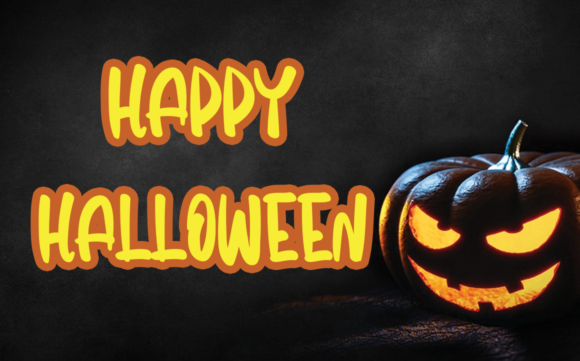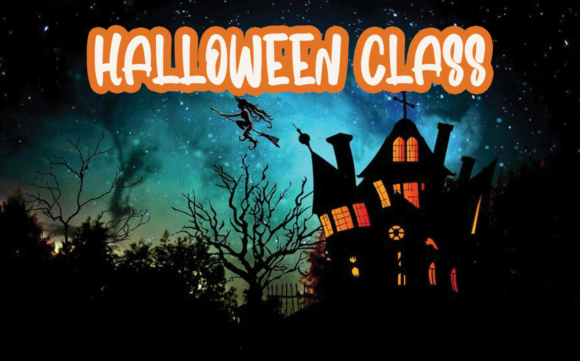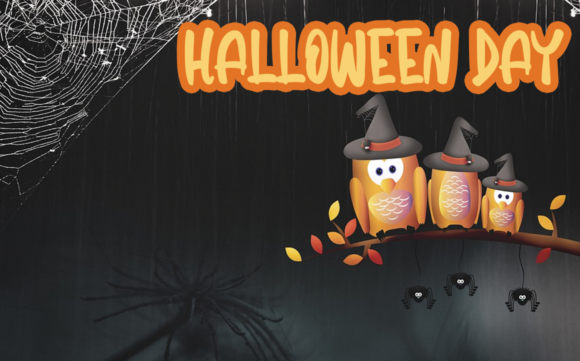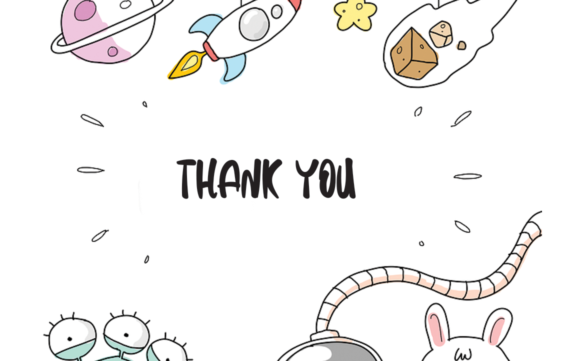
Unleash Your Creativity with Halloween Teacher Font
Are you a designer, crafter, or DIY enthusiast looking for a unique and fun font to add a touch of personality to your projects? Look no further than the Halloween Teacher Font! This friendly handwritten font is perfect for anyone who wants to create eye-catching and creative designs that stand out from the crowd.
What is Halloween Teacher Font?
Halloween Teacher Font is a one-of-a-kind, handcrafted font that is sure to add a spooky-ooky touch to any project. With its playful and friendly vibe, this font is ideal for designers and crafters who want to create fun and engaging designs that capture the essence of Halloween. Whether you’re working on a DIY project, creating social media graphics, or designing invitations, Halloween Teacher Font is the perfect choice.
Key Features of Halloween Teacher Font
- Unique and Handwritten: Halloween Teacher Font is a carefully crafted, handwritten font that is both unique and eye-catching.
- Fun and Friendly: This font has a playful and friendly vibe that is perfect for Halloween-themed designs.
- Versatile: Halloween Teacher Font can be used for a wide range of projects, from social media graphics to DIY crafts and invitations.
Halloween Teacher Font is a dream come true for designers and crafters who want to add a personal touch to their projects. With this font, you can:
- Create eye-catching social media graphics that stand out from the crowd.
- Design unique and personalized invitations for Halloween parties and events.
- Add a touch of personality to your DIY crafts, such as Halloween decorations and gift tags.
- Develop creative and engaging content for your blog or website.
Tips for Using Halloween Teacher Font
To get the most out of Halloween Teacher Font, here are a few tips to keep in mind:
- Experiment with Different Sizes and Colors: Try out different font sizes and colors to add visual interest to your designs.
- Combine with Other Fonts: Pair Halloween Teacher Font with other fonts to create a unique and eye-catching look.
- Use for Headlines and Titles: Use Halloween Teacher Font for headlines and titles to add a touch of personality to your designs.
- Don’t be Afraid to Get Creative: Halloween Teacher Font is a versatile font that can be used in a wide range of creative projects.
Where to Use Halloween Teacher Font
Halloween Teacher Font can be used in a wide range of projects, including:
- Social Media Graphics: Use Halloween Teacher Font to create eye-catching social media graphics that stand out from the crowd.
- DIY Crafts: Add a touch of personality to your DIY crafts, such as Halloween decorations and gift tags.
- Invitations and Party Decorations: Design unique and personalized invitations and party decorations for Halloween events.
- Blog or Website Content: Develop creative and engaging content for your blog or website.